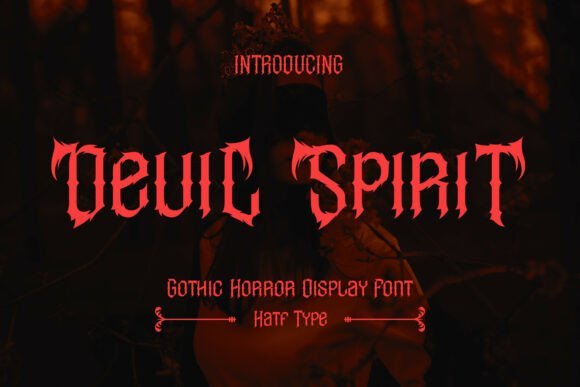
The Dark Allure of Typography: Unveiling the Devil Spirit Font
Have you ever found yourself lost in a sea of creative possibilities, yearning for the perfect font to bring your project to life? It’s a moment we’ve all experienced – the blank canvas staring back at us, begging for inspiration. For designers and creatives, the quest for the perfect font can be a daunting task. But what if I told you that the solution lies in a font that exudes an otherworldly charm, one that will transport your audience to a realm of mystery and intrigue?
Enter the Devil Spirit Font, a captivating typographic masterpiece that embodies the essence of darkness and power. This font is not just a collection of letters and symbols; it’s an icon of creative genius, crafted to amplify your visual identity and leave a lasting impression. With its sharp, spiky, and textured letterforms, the Devil Spirit Font is the perfect choice for designers seeking to add an air of sophistication and darkness to their projects.
Devil Spirit Font Key Features
- Font Family: Devil Spirit Font is a unique, hand-drawn font that offers a wide range of characters, including uppercase and lowercase letters, numbers, and punctuation marks.
- Unique Characteristics: Devil Spirit Font features a bold, gothic style with intricate details and textures, giving it a distinctive and eye-catching appearance.
Devil Spirit Font Review
Overall, I have mixed feelings about the Devil Spirit Font. While it has some unique features, it’s not without its limitations.
- Distinctive design: The font has a bold, striking appearance that grabs attention.
- Unique flair: The devil-inspired elements add a touch of whimsy and playfulness.
- Good legibility: Despite its bold nature, the font remains relatively easy to read.
- Overly dramatic: The font’s design may be too much for some users, coming across as overly dramatic or even garish.
- Limited versatility: The font’s unique features may make it less suitable for formal or professional applications.
- Font size limitations: The font may become too overwhelming at larger sizes, making it difficult to read.
The Devil Spirit Font is a bold, attention-grabbing choice that’s perfect for those who want to add a touch of personality to their designs. However, its limitations make it less suitable for formal or professional applications.
Use the Devil Spirit Font to add a touch of edginess to your designs.
Combine it with bold colors and striking graphics for maximum impact.
Experiment with different font sizes and styles to create a unique look.
Use the Devil Spirit Font for:
Horror-themed designs and artwork.
Edgy marketing materials and promotional items.
Dark and mo